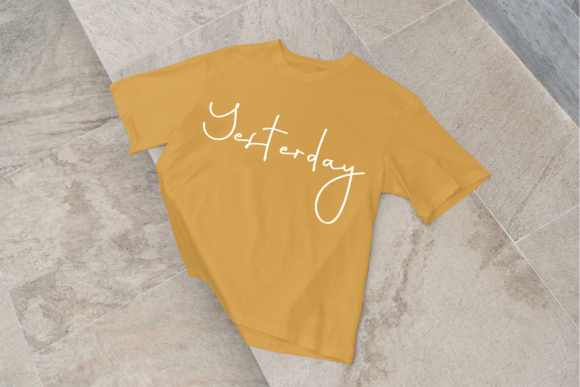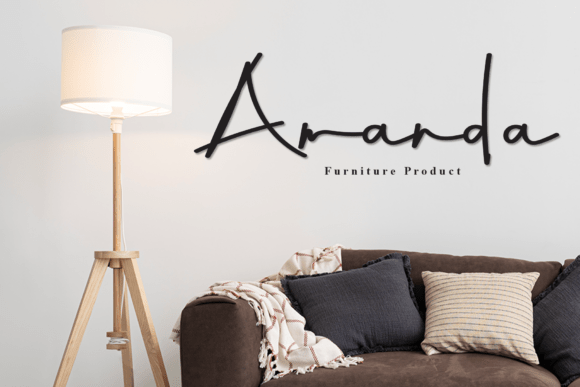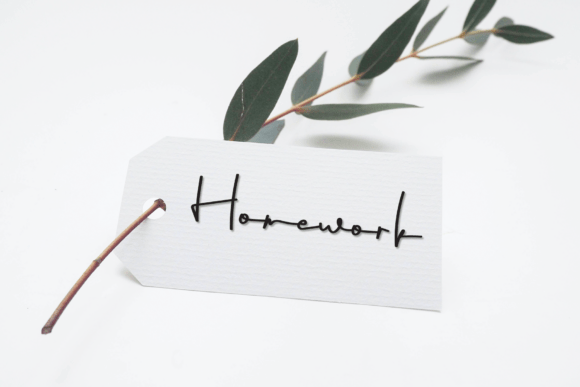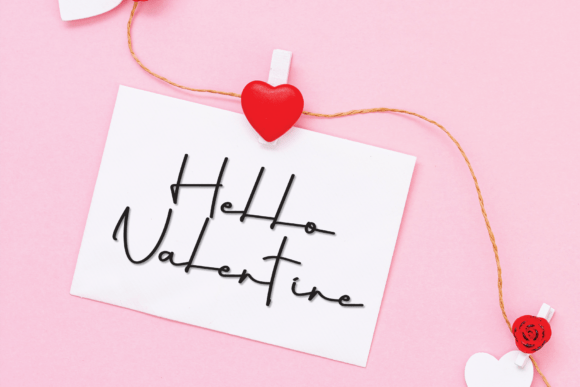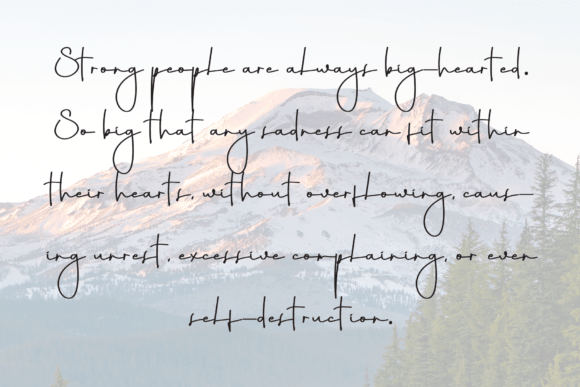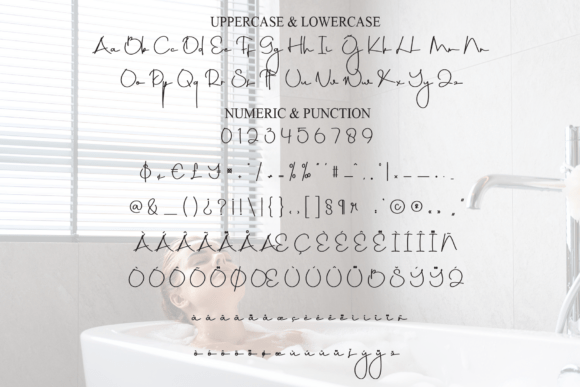
Introduction to Bathine Font
Do you remember the moment when you found the perfect font for your creative project? The one that made your design stand out and captured the essence of your idea? For designers, finding the right font can be a game-changer. It’s what sets a good design apart from an exceptional one.
That’s where the Bathine Font comes in – a special creative product designed to give you an extraordinary experience. With its latest style letters, this font is perfect for a wide range of applications, from wall displays to wedding invitations, social media logos, and product packaging.
Key Features of Bathine Font
- High-quality design resource ideal for creative projects, offering a unique and stylish aesthetic.
- Designed with precision and care, ensuring a crisp and clear appearance at resolutions up to 300 DPI.
- Includes a range of glyphs and characters, making it suitable for various languages and design applications.
Honest Review: Bathine Font
As a designer, I’m always on the lookout for high-quality design resources to elevate my creative projects. Recently, I had the chance to try out the Bathine Font, and I’m excited to share my honest review with you.
- ✨ Elegant and modern design style that’s perfect for creating a sophisticated look
- ⚠️ The font selection is limited, with only a few styles and weights to choose from
- ⚠️ The font may not be suitable for very large-scale designs, as it can become pixelated at high resolutions
Overall, I’d say the Bathine Font is a solid choice for designers looking for a free, high-quality font to add some elegance to their creative projects. While it may have some limitations, I think it’s worth checking out – especially if you’re on a budget.
The Bathine Font is a high-quality, free design resource perfect for your next creative project. With its unique style and transparent background, it’s an ideal addition to any design.
The Bathine Font is ideal for creative projects such as:
– Social media graphics
– Infographics
– Brochures
– Business cards